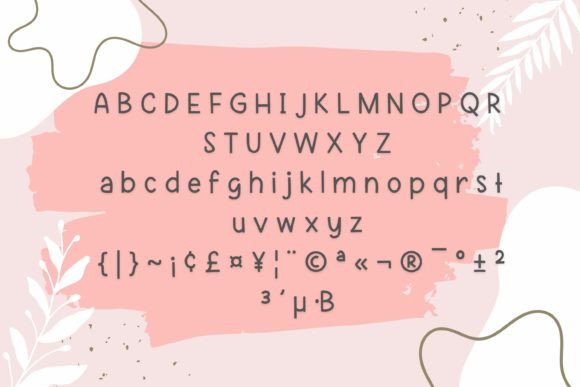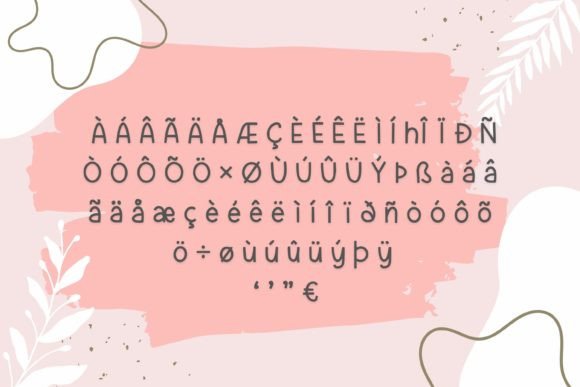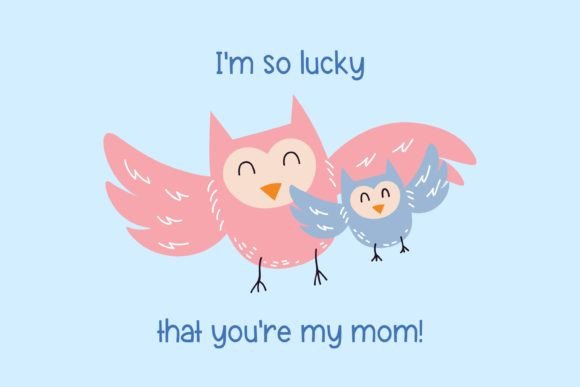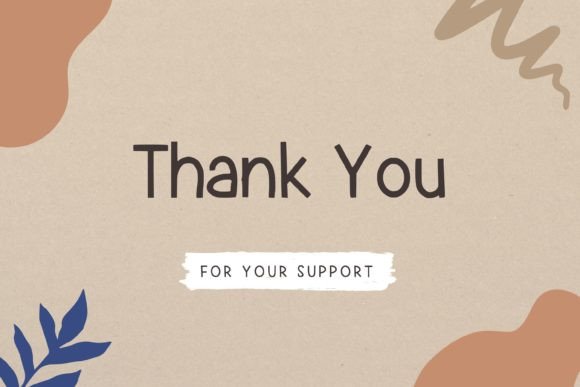
About Tributary Font
“Tributary” is a friendly and casual handwritten font that offers versatility and charm. It’s a font that can easily become your go-to choice for a wide range of design projects, regardless of the occasion. Whether you’re using it for crafts, digital design, presentations, or creating greeting cards, “Tributary” has the potential to add a personal and approachable touch to your work.
The appeal of “Tributary” lies in its casual and handwritten style, which gives your text a relatable and friendly look. This font captures the essence of handwritten notes, making it perfect for designs that aim to convey a sense of warmth and approachability.
One of the standout features of “Tributary” is its versatility. It can be used in various design contexts, making it a valuable choice for creative work. The font’s friendly and casual appearance makes it particularly well-suited for projects where a welcoming and personable feel is desired.
When you incorporate “Tributary” into your designs, you can expect to infuse a sense of friendliness and approachability into your text. This font has the power to make your designs feel relatable and engaging, making it a great choice for connecting with your audience.
In summary, “Tributary” is a font that adds a friendly and casual touch to your design projects. Its handwritten style and approachable appearance make it a versatile choice for a variety of creative applications. You can confidently use “Tributary” to add a warm and relatable feel to your designs, whether they are for crafts, digital design, presentations, greeting cards, or any other occasion.